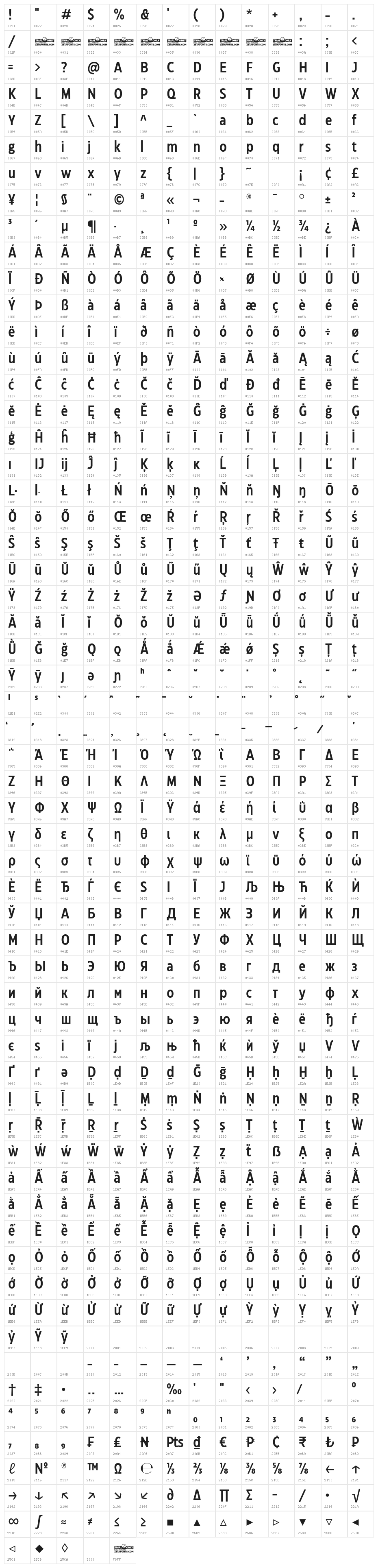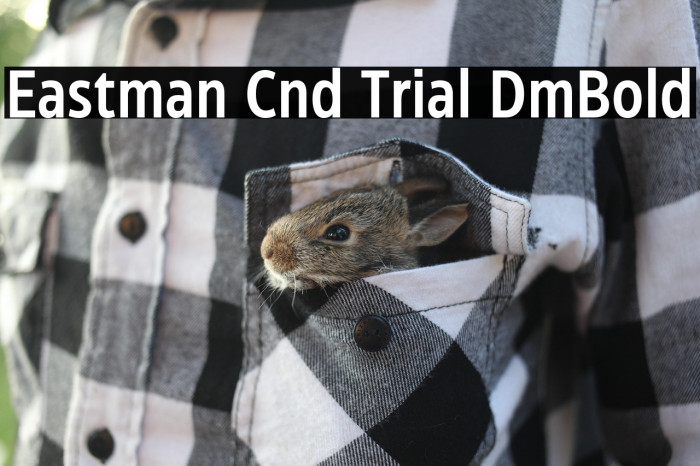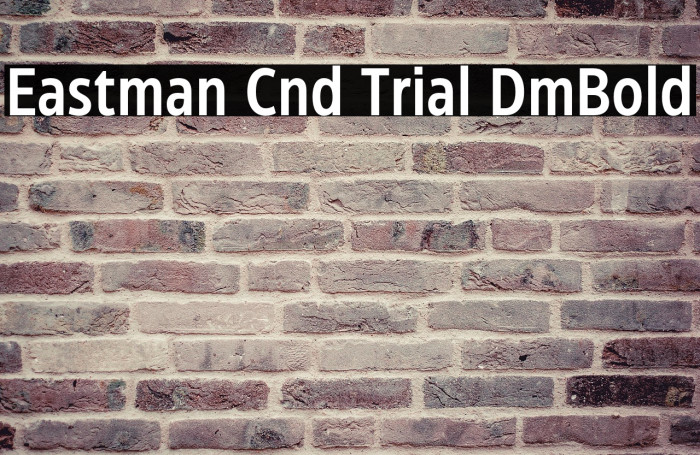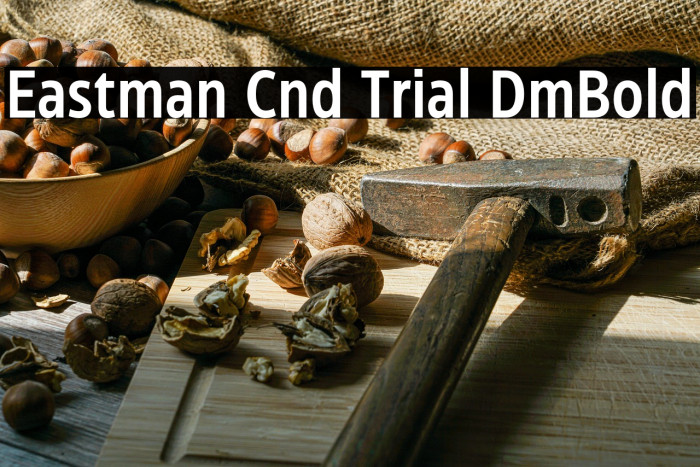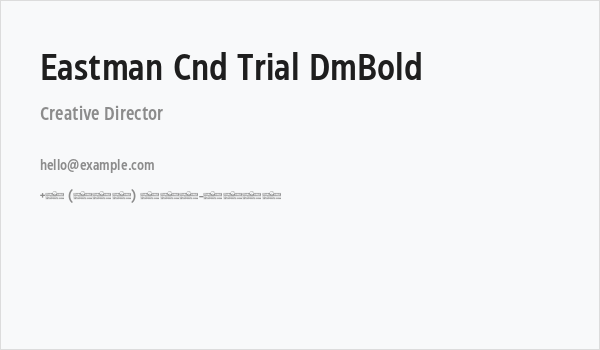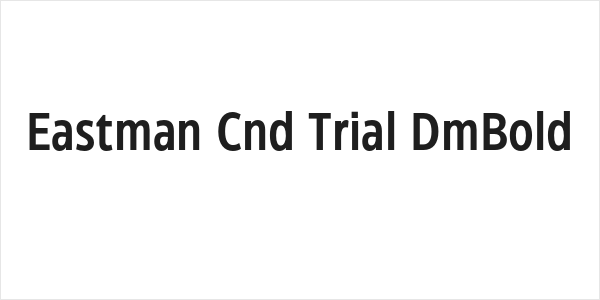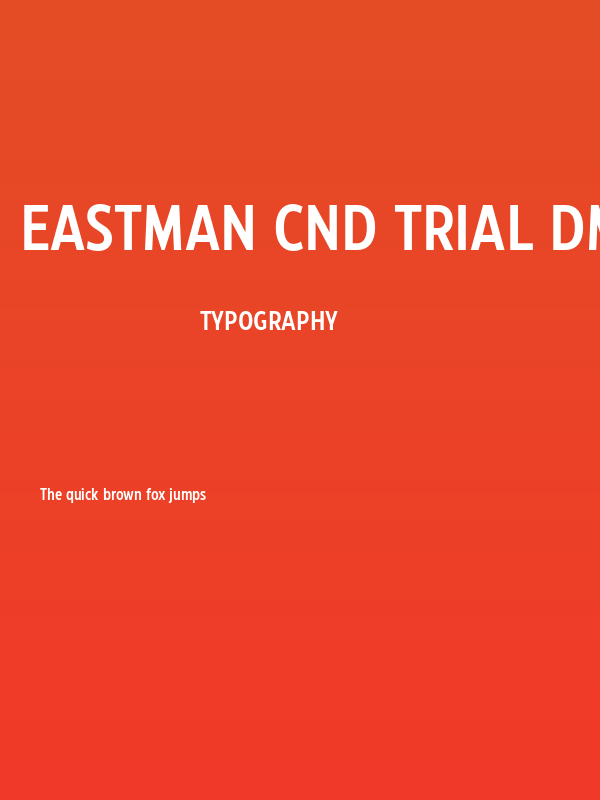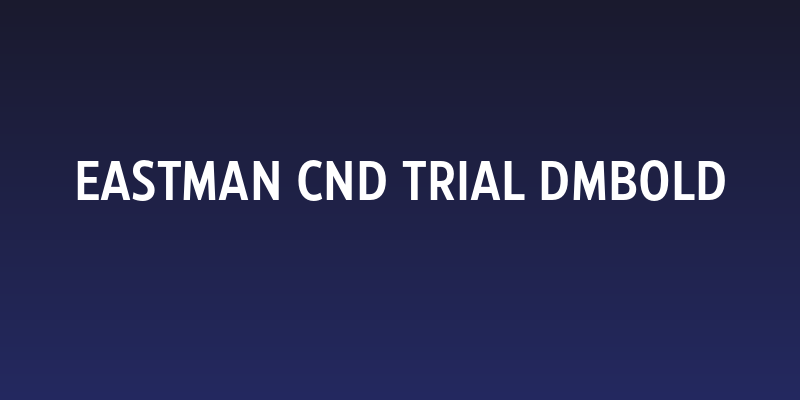
Eastman Cnd Trial DmBold Font
Eastman Cnd Trial DmBold Description
This font features a bold and modern sans-serif style with clean lines and a strong presence. The characters are condensed, giving it a compact appearance that maximizes space efficiency. The uppercase and lowercase letters are well-proportioned, maintaining readability across various sizes. The numerals are clear and distinct, matching the overall boldness of the font. Special characters are included, enhancing its versatility for different types of content. The consistent stroke width throughout the characters provides a uniform look, making it suitable for both digital and print media.
| Proposed Projects | Ideal for branding, advertising, headlines, and digital content where a strong, modern look is desired. |